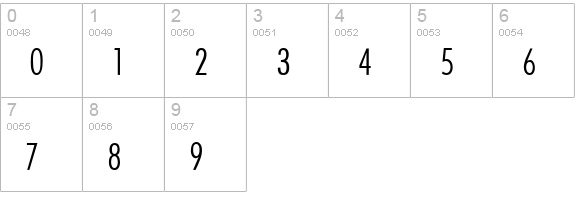
Kudos Light Condensed SSi Extra Light Condensed is a refined, elegant, condensed-width variant in the Kudos typeface family \xE2\x80\x94 well suited to elegant body text, refined sub-headings, and luxury branding.
Introducing Kudos Light Condensed SSi Extra Light Condensed font - a sleek and sophisticated typeface that exudes elegance and modernity. With its clean lines and subtle curves, this font is perfect for adding a touch of sophistication to any project. The extra light condensed weight of Kudos Light Condensed SSi makes it ideal for creating a sleek and minimalist look. What's even better is that this font is available for free download at FontsMarket.com. Whether you're designing a website, creating a logo, or working on a print project, Kudos Light Condensed SSi Extra Light Condensed font is sure to elevate your design with its timeless appeal. Download it now and add a touch of class to your next project!